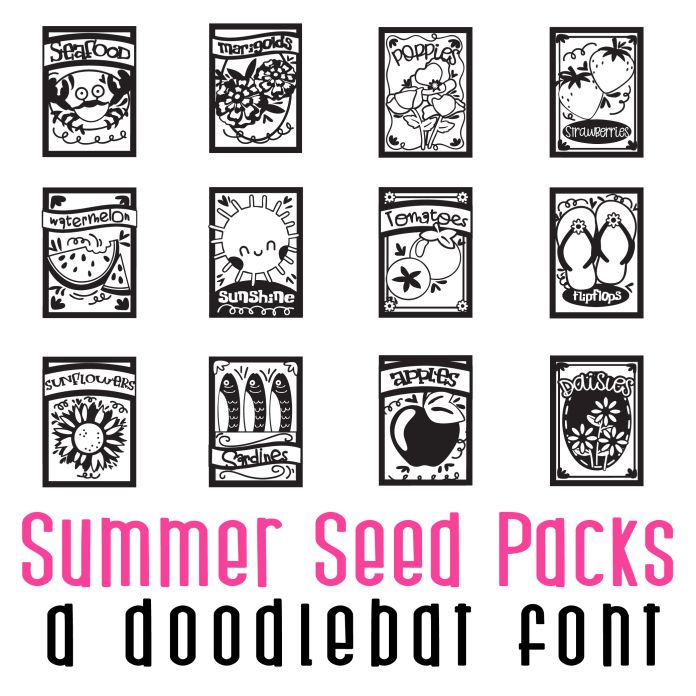
Summer Seed Packs Doodlebat Font is a whimsical and playful dingbat font design featuring various garden and summer themed seed packs. Perfect for creating invitations, cards, crafts, gifts, planner stickers scrap book pages and other designs related to gardening, nature, or summer themes.